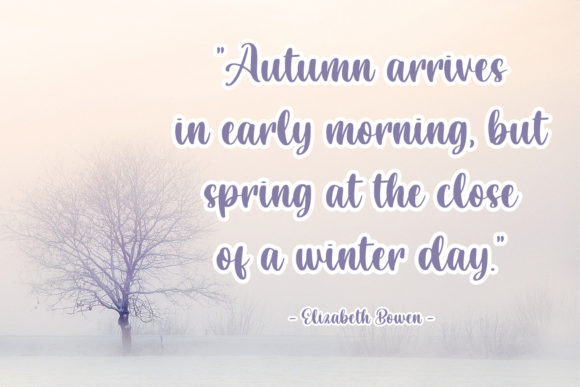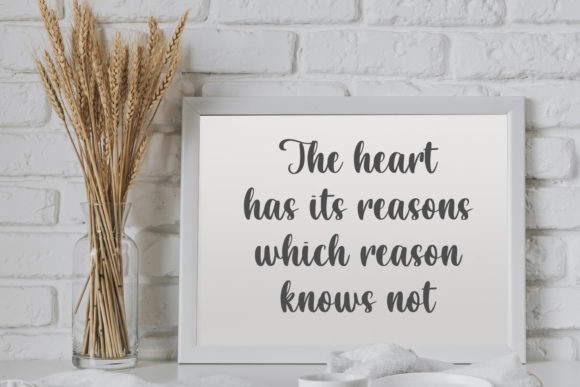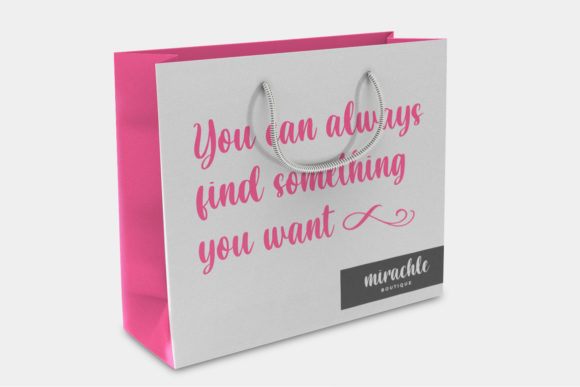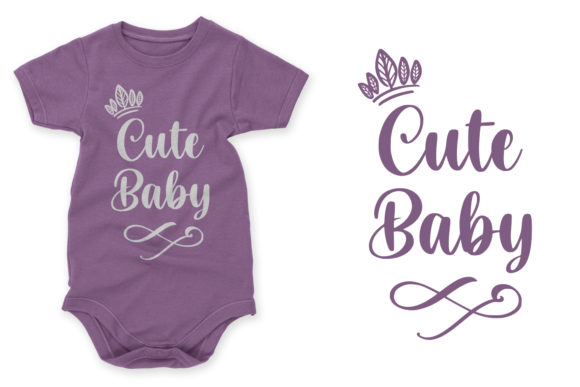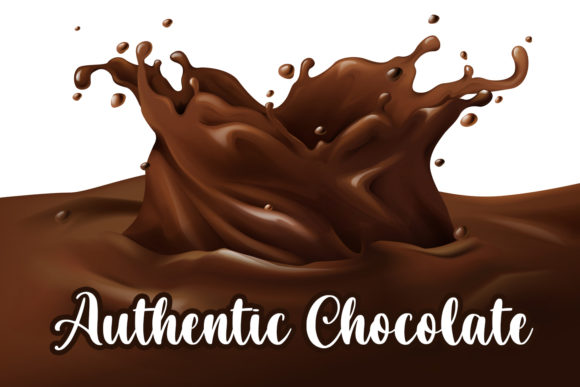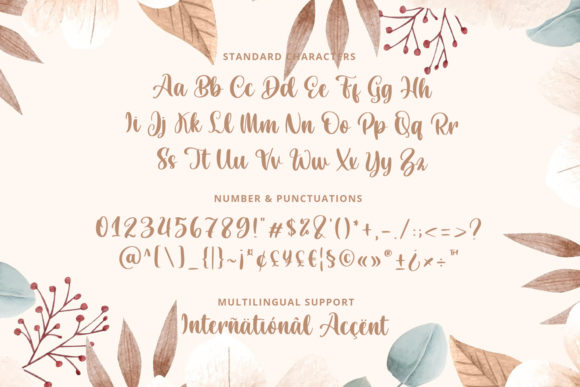
Introduction to Risalah Cinta Font
Risalah Cinta is a stunning script font with additional doodles for you to enjoy.
It is great for branding, packaging, quotes, wedding card, logo, signature, t-shirt designs, tote bag designs, cards, banners, social media, and anything craft project .